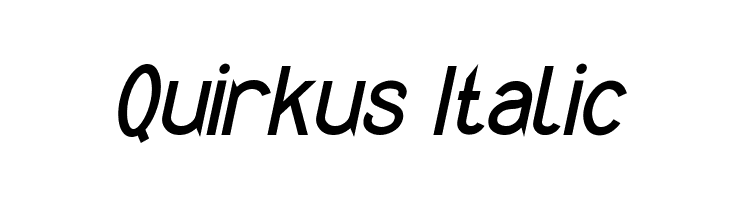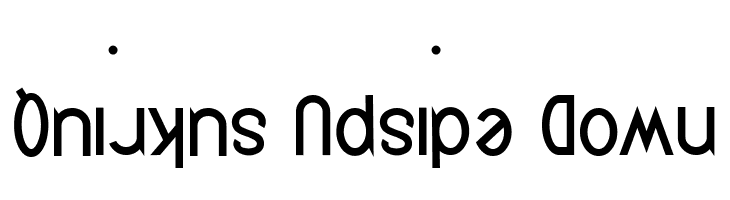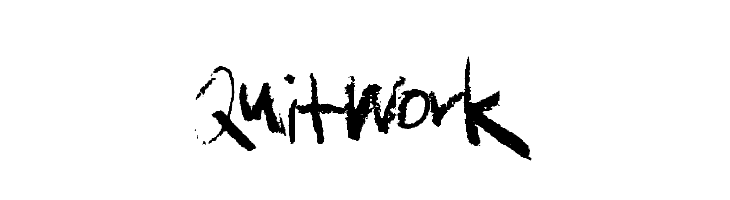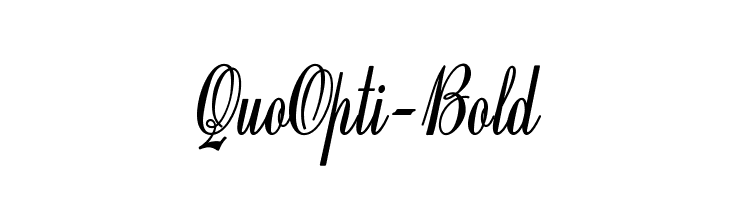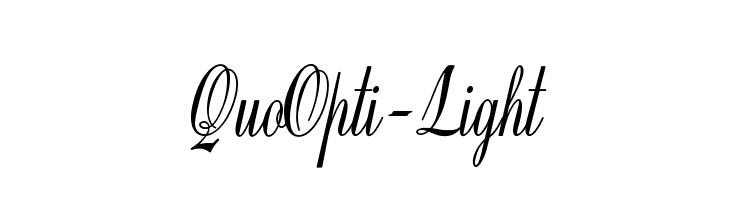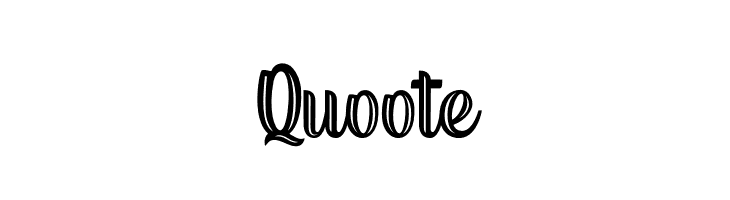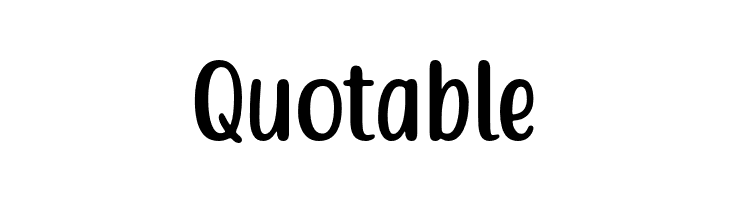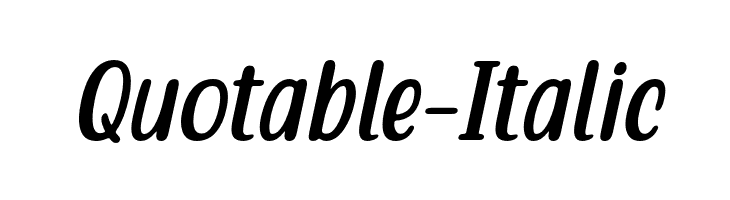
A modern, italic font with sleek, condensed characters and a dynamic style.
A bold, outlined font with rounded characters and a playful style.
A modern sans-serif font with bold, upside-down characters for a playful effect.
A bold, expressive, hand-drawn font with a brush-like, graffiti-inspired style.
A modern, geometric font with a digital, tech-inspired aesthetic.
A bold, elegant script font with flowing, cursive design and ornate uppercase letters.
An elegant script font with flowing, cursive letterforms and intricate flourishes.
A playful, bold, hand-drawn font with outlined characters.
A playful, rounded font with bold, smooth curves and a friendly appearance.
A smooth, flowing italic font with a modern and approachable style.